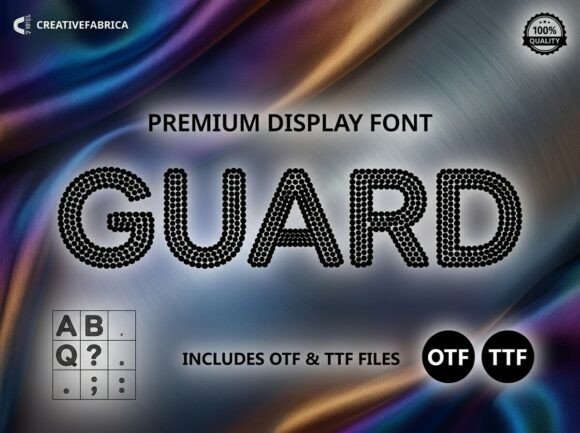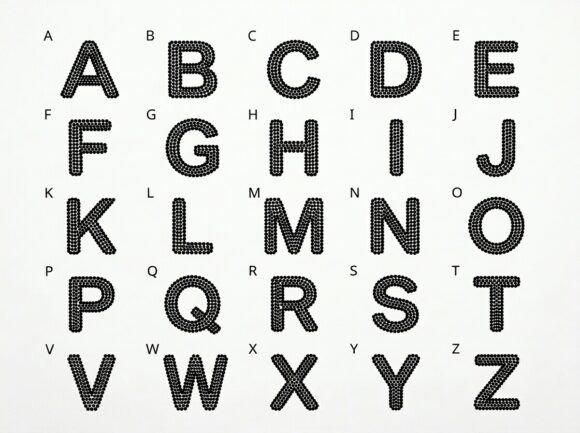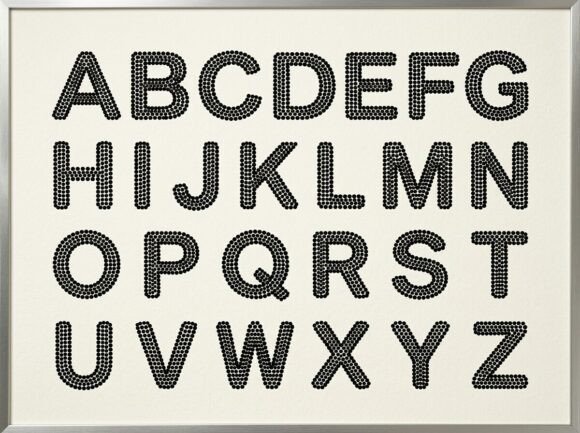
Introducing Guard Font: The Ultimate Decorative Display Font for Creators
Are you tired of using the same old fonts for your designs? Do you want to make a statement and stand out from the crowd? Look no further than Guard Font, a stunning decorative display font that’s designed to be the center of attention. With its unique artistic elements and strong visual personality, this font is perfect for creators who want to break away from the ordinary and add a touch of elegance to their work.
What Makes Guard Font Special?
Guard Font is a versatile font that’s perfect for a variety of design projects, from bold headlines and artistic logos to creative packaging. Its unique artistic elements and strong visual personality make it an excellent choice for creators who want to add a touch of sophistication to their work. Whether you’re a graphic designer, a crafty DIY enthusiast, or a marketing professional, Guard Font is sure to impress.
Key Features of Guard Font
- Unique Artistic Elements: Guard Font features unique artistic elements that set it apart from other fonts. Its decorative strokes, intricate details, and elegant lines make it a true work of art.
- Strong Visual Personality: This font has a strong visual personality that’s sure to grab attention. Its bold and confident design makes it perfect for headlines, logos, and other design elements that need to make a statement.
- Versatile: Guard Font is versatile enough for a variety of design projects, from bold headlines and artistic logos to creative packaging.
- Professional and Polished Finish: Despite its decorative nature, Guard Font maintains a professional and polished finish that’s perfect for high-end designs.
⚠️ IMPORTANT NOTE BEFORE PURCHASE: Guard Font is an ALL-CAPS (Uppercase Only) display typeface. It does not include lowercase letters. It is specifically designed for high-impact headlines, logos, and decorative initials where every letter is a work of art.
Who is Guard Font for?
Guard Font is perfect for:
- Graphic Designers: If you’re a graphic designer looking for a unique and elegant font to add to your collection, Guard Font is an excellent choice.
- Crafty DIY Enthusiasts: If you’re a crafty DIY enthusiast who loves to create handmade cards, gift tags, and other paper crafts, Guard Font is a great addition to your design toolkit.
- Marketing Professionals: If you’re a marketing professional looking for a font that will help your brand stand out, Guard Font is a great option.
Tips for Using Guard Font
Here are some tips for using Guard Font:
- Use it for Headlines: Guard Font is perfect for headlines, titles, and other design elements that need to make a statement.
- Pair it with a Simple Font: Pair Guard Font with a simple font to create a striking contrast and add visual interest to your design.
- Experiment with Colors: Guard Font looks great in a variety of colors, so don’t be afraid to experiment and find the perfect color scheme for your design.
Guard Font is a stunning decorative display font that’s perfect for creators who want to add a touch of elegance and sophistication to their work. With its unique artistic elements, strong visual personality, and versatility, this font is sure to impress. Whether you’re a graphic designer, a crafty DIY enthusiast, or a marketing professional, Guard Font is an excellent addition to your design toolkit.